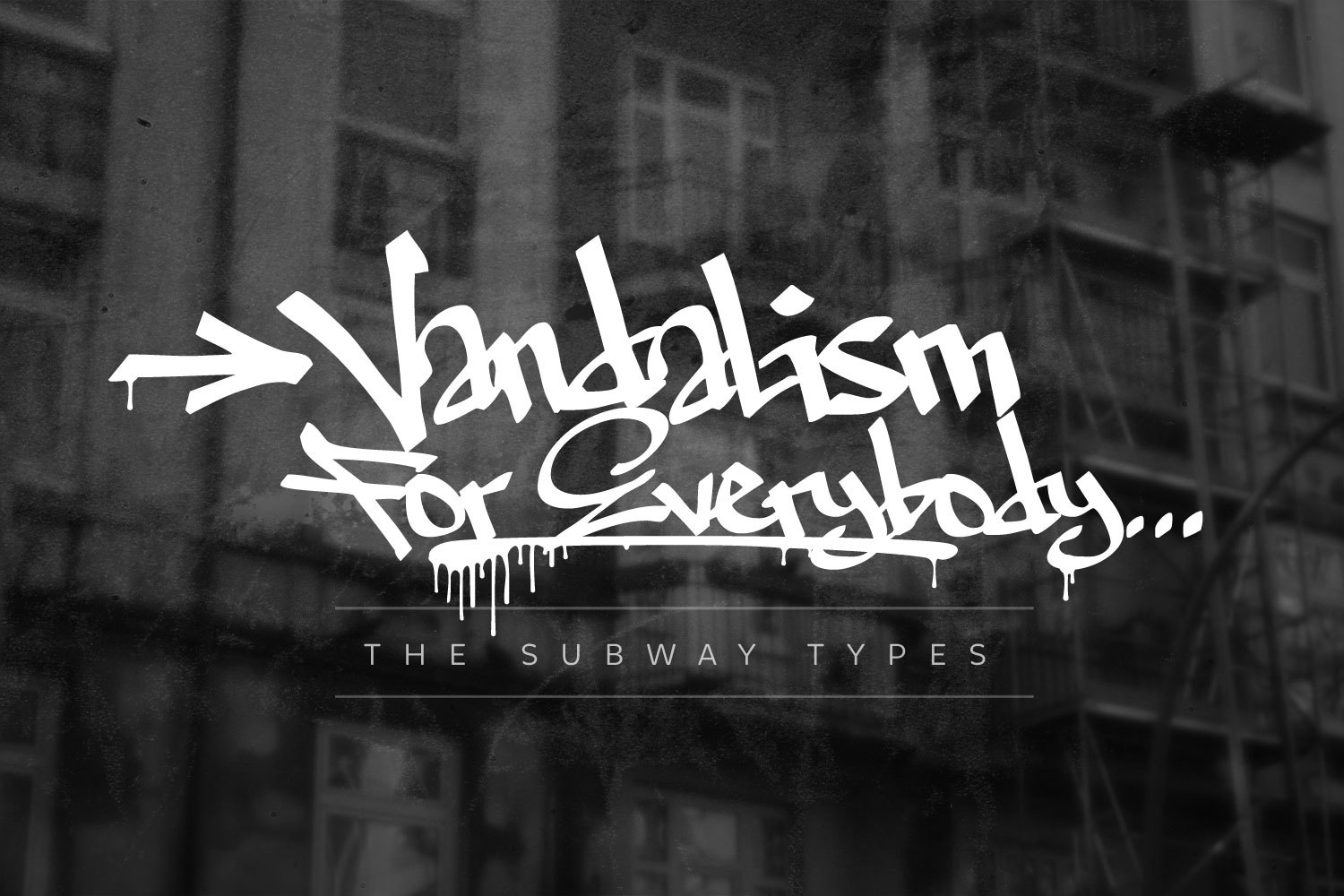
The Subway Types
All Graffiti fonts are bad. Nearly.
The idea was to create a package containing prominent tag styles of graffiti strongholds like New York, Berlin and Paris. Shik (New York), Deon (Paris) and Etan (Berlin) came together to show the typical tag styles of these metropolitan areas. The fonts were digitized, spaced, kerned and programmed by Hannes von Döhren. The Subway Types are highly equipped. Each one consists of 4 alphabets (Uppercase, Lowercase, Small Caps & Swash). They also include ligatures and some specials like underlines and a huge range of accents for a wide language support. With the OpenType technology these features can be applied easily.
Subway Berlin
Subway Paris
Subway New York
Subway Extras
Tags should be done on walls — but if you need them elsewhere…
OpenType Features – or what else you can do with it, besides pretending you have skills.
The Subway Types are highly equipped. Each one consists of 4 alphabets (Uppercase, Lowercase, Small Caps & Swash). They also include ligatures and some specials like underlines and a huge range of accents for a wide language support. With the OpenType technology these features can be applied easily.
Sheesh! Fuck the Buff.
Ligatures
If two letters have the nature to collide when used in combination a ligature is needed to solve this unwanted event. Ligatures are especially designed solutions for such letter combinations. This font contains a set of ligatures which are automatically substituted as soon as these letter combinations are typed in.
Cheap Trashcans
Small Caps
Small Caps are uppercase characters set at the same height and weight as the lowercase characters or text figures. They are used in text emphasize or typographically differentiate passages beside the italics. Professional designed Small Caps are not simply scaled-down versions of the capital letters – they are designed to work with the lowercase letters and have the same stroke weight.
Masters of the Yard!
Swashes
Swash Letters are extravagant, flourish versions of letters. They can be used to give special attention to words or headlines. Mostly there are swash alternates for the capital letters which are set in the beginning of a word. Sometimes an „end-character“ can also be swashy to emphasize the end of a word or give it a nice swirl.
Ornaments
Additionally to the letters this font family contains a big set of extras, arrows and drips fitting to the characteristics of the styles. The user can combine text and extra elements keeping a homogenous design language. The full set of extras is shown in the character set overview below.